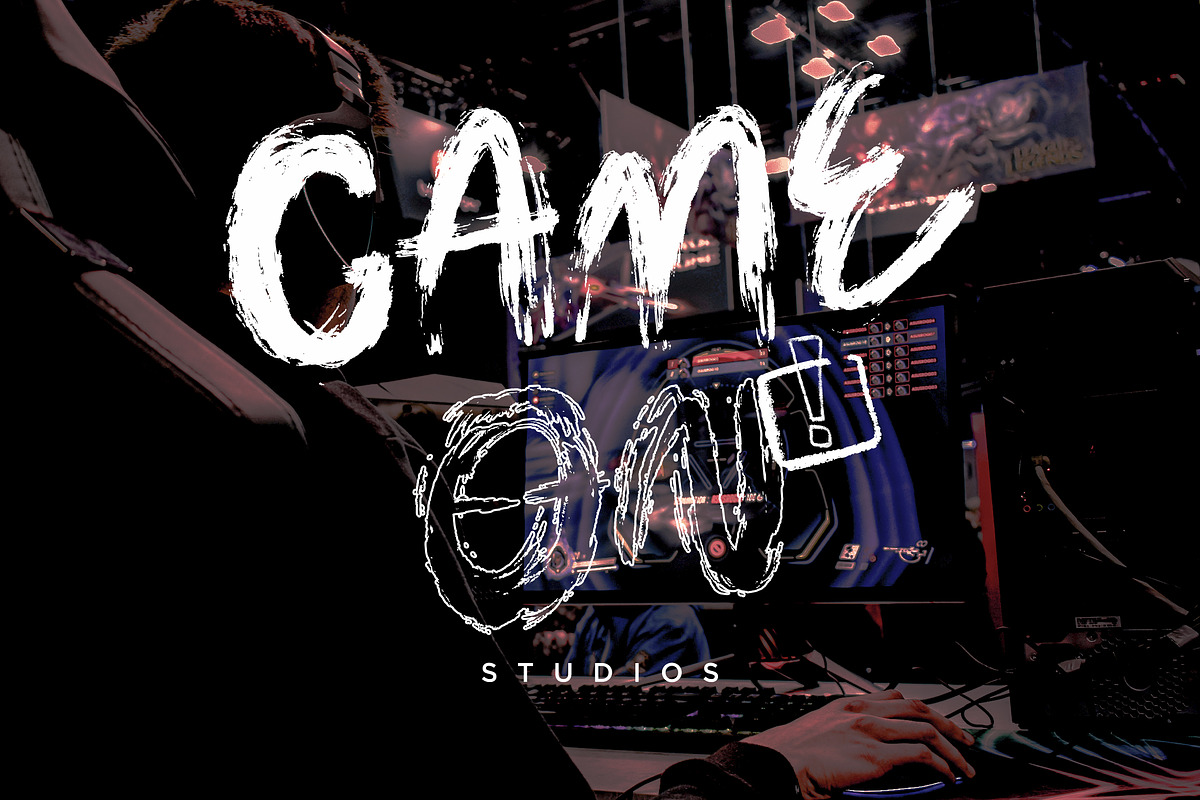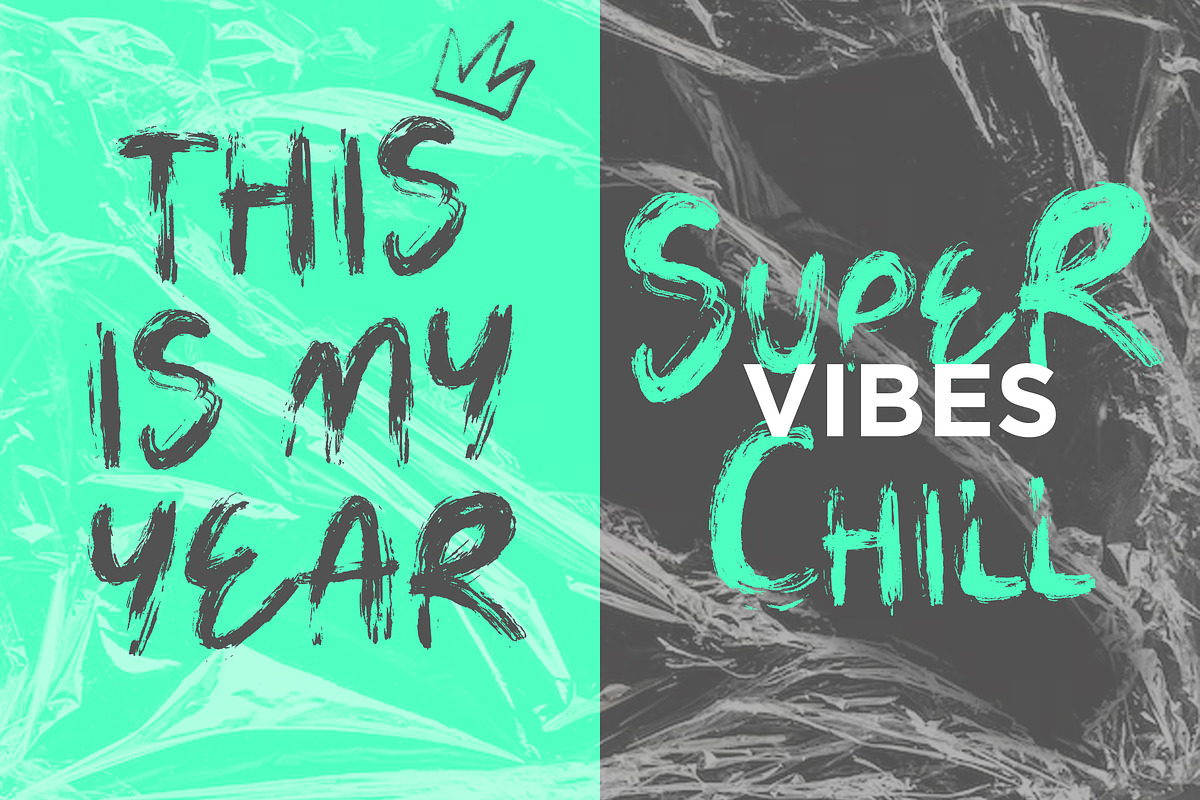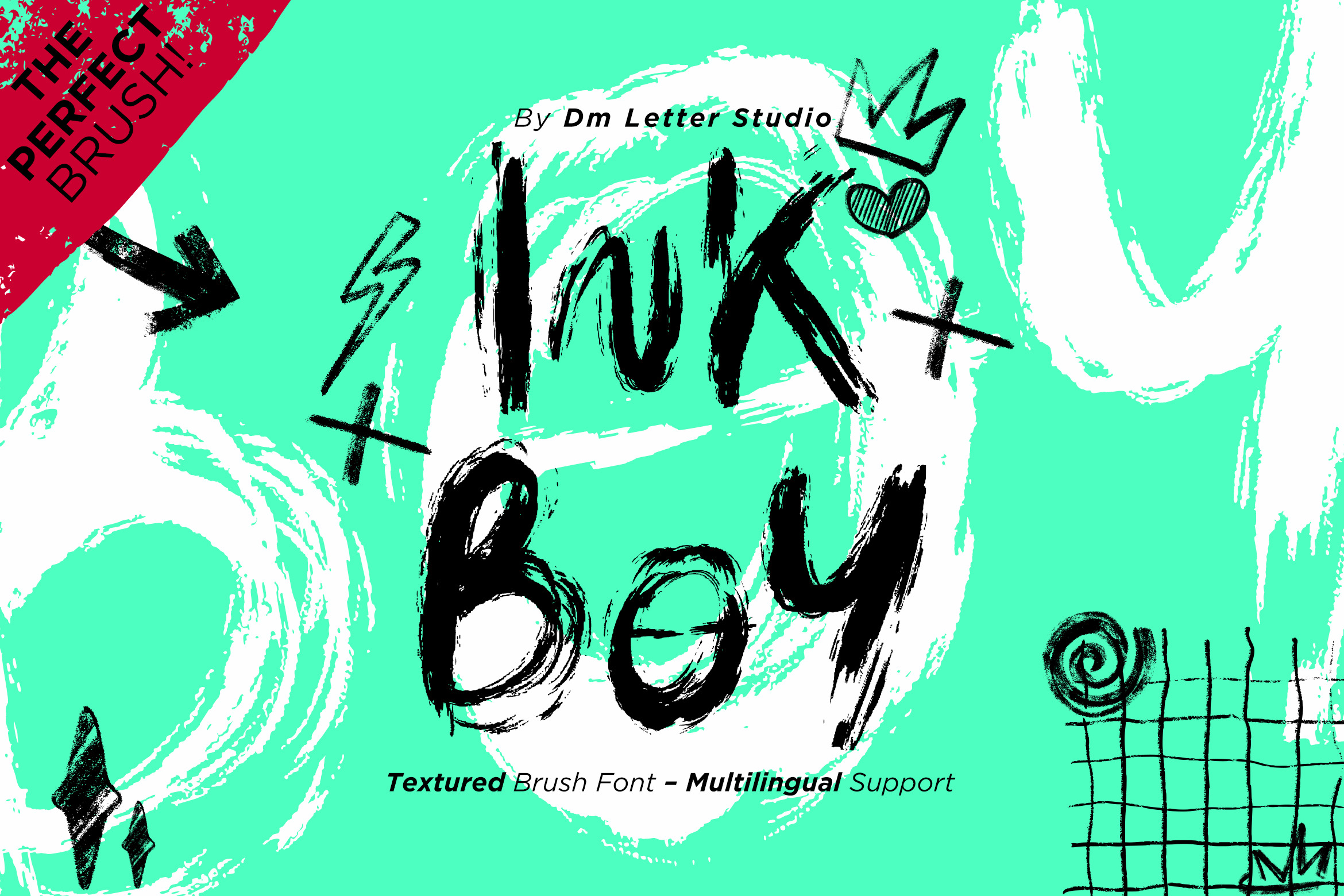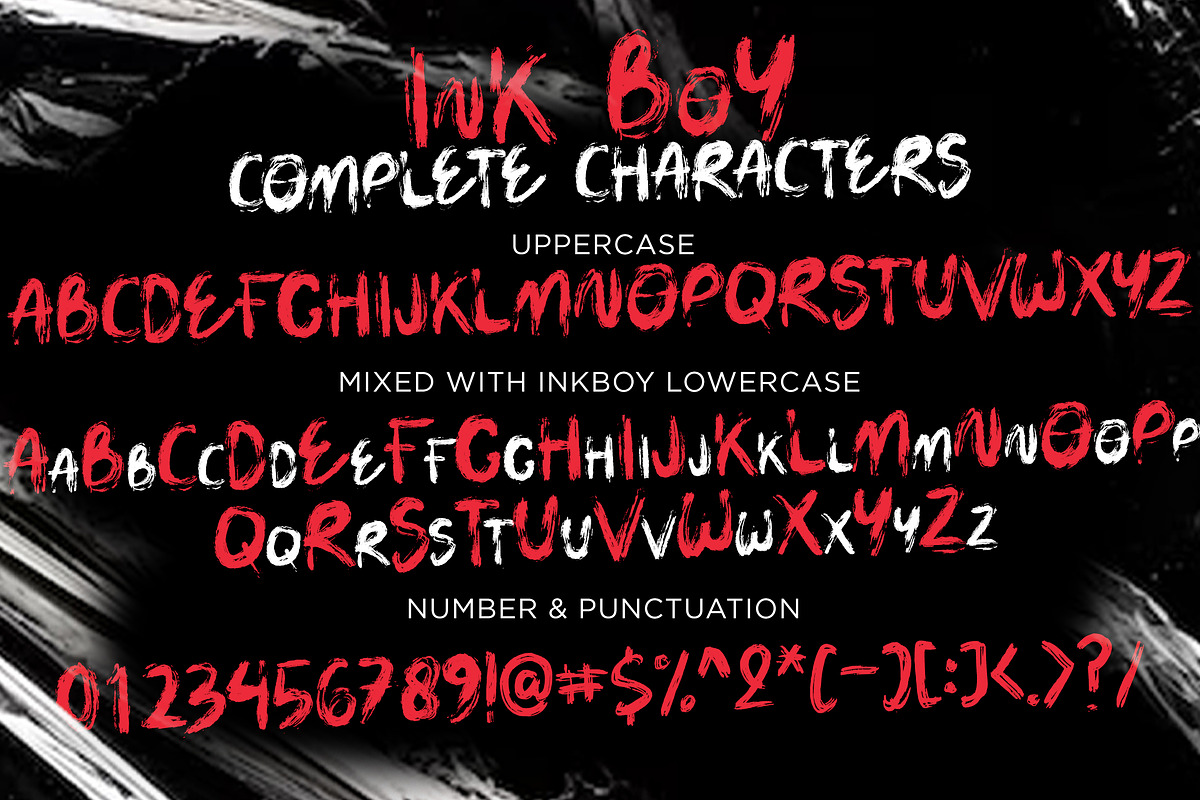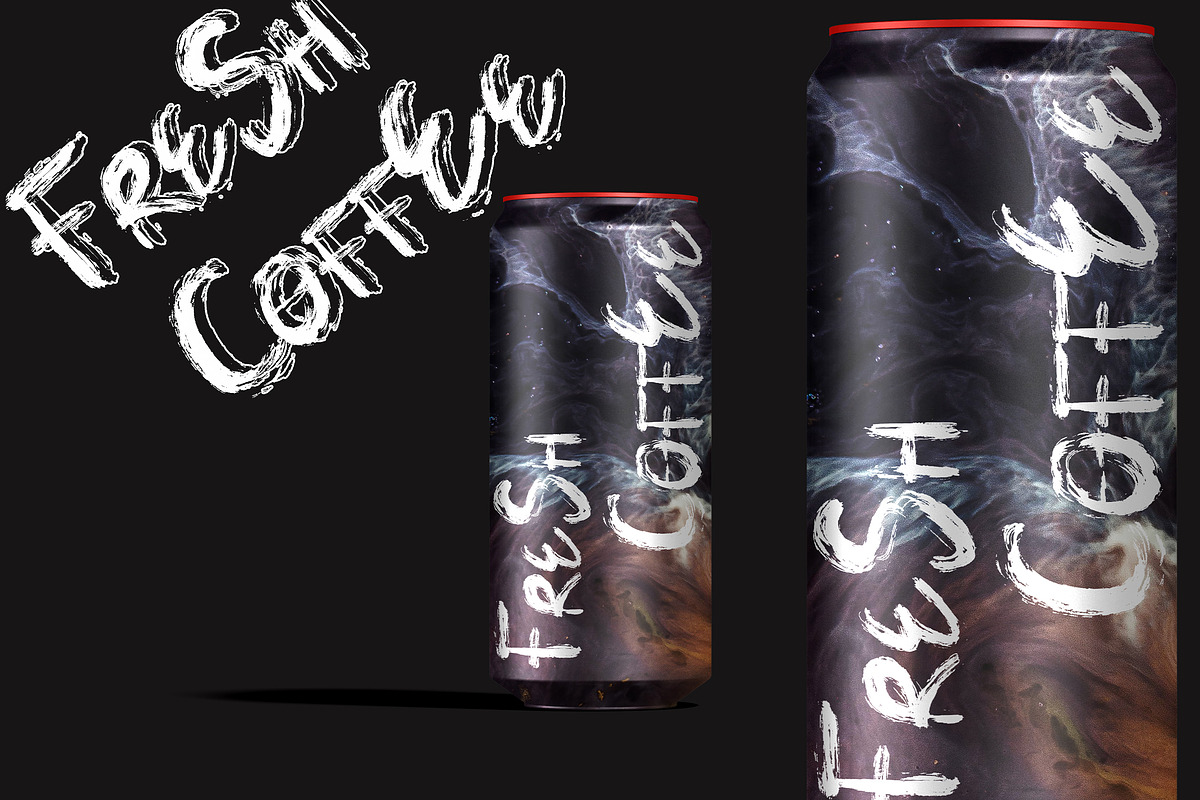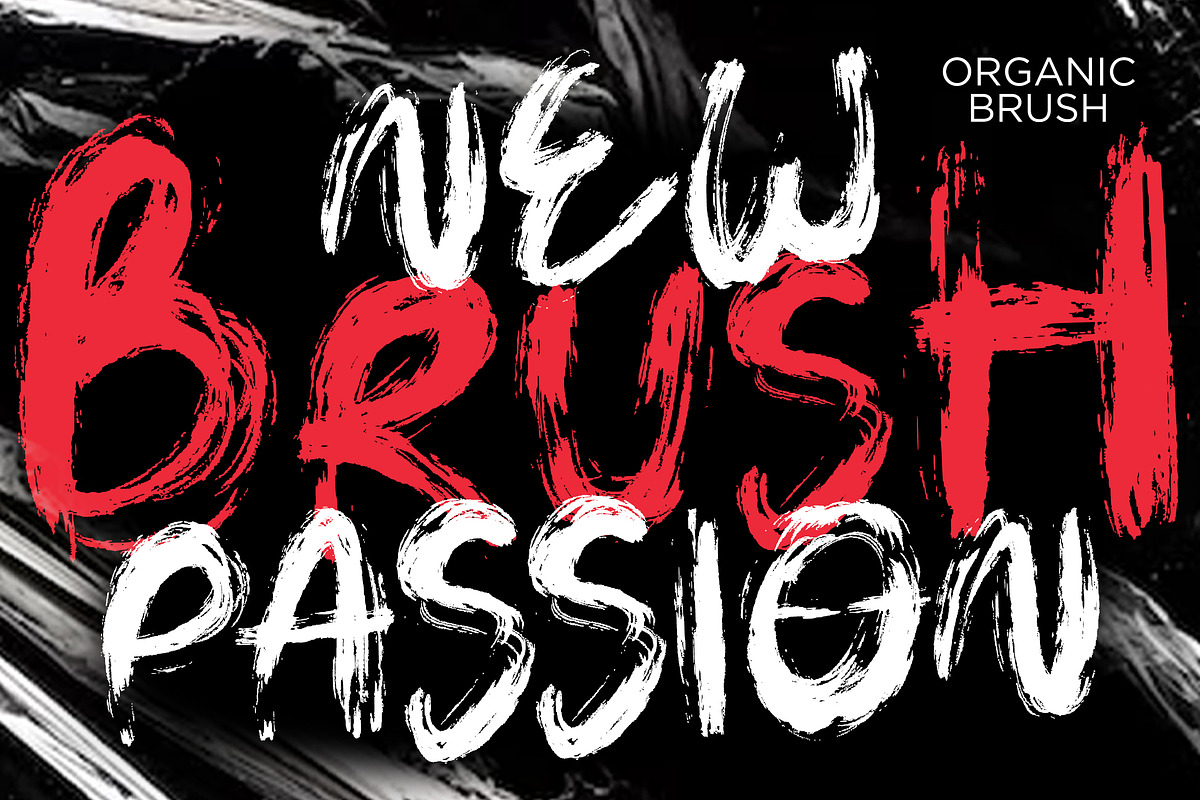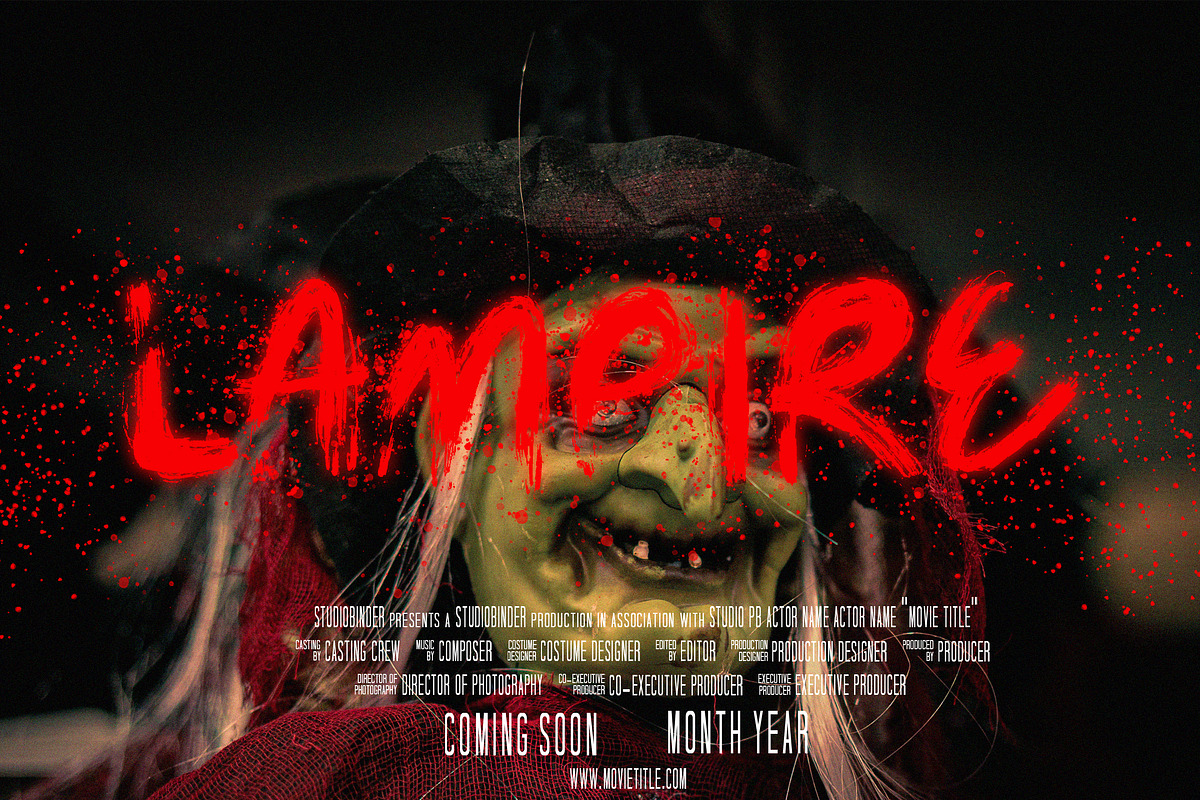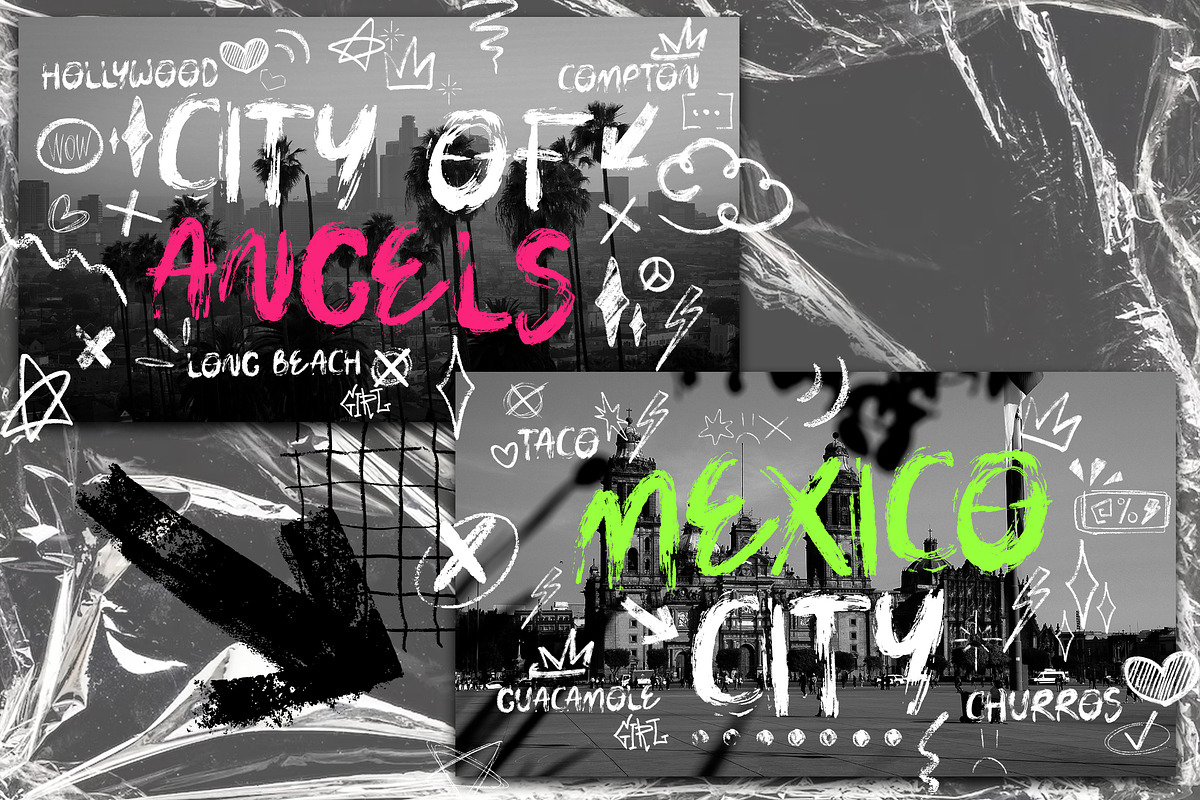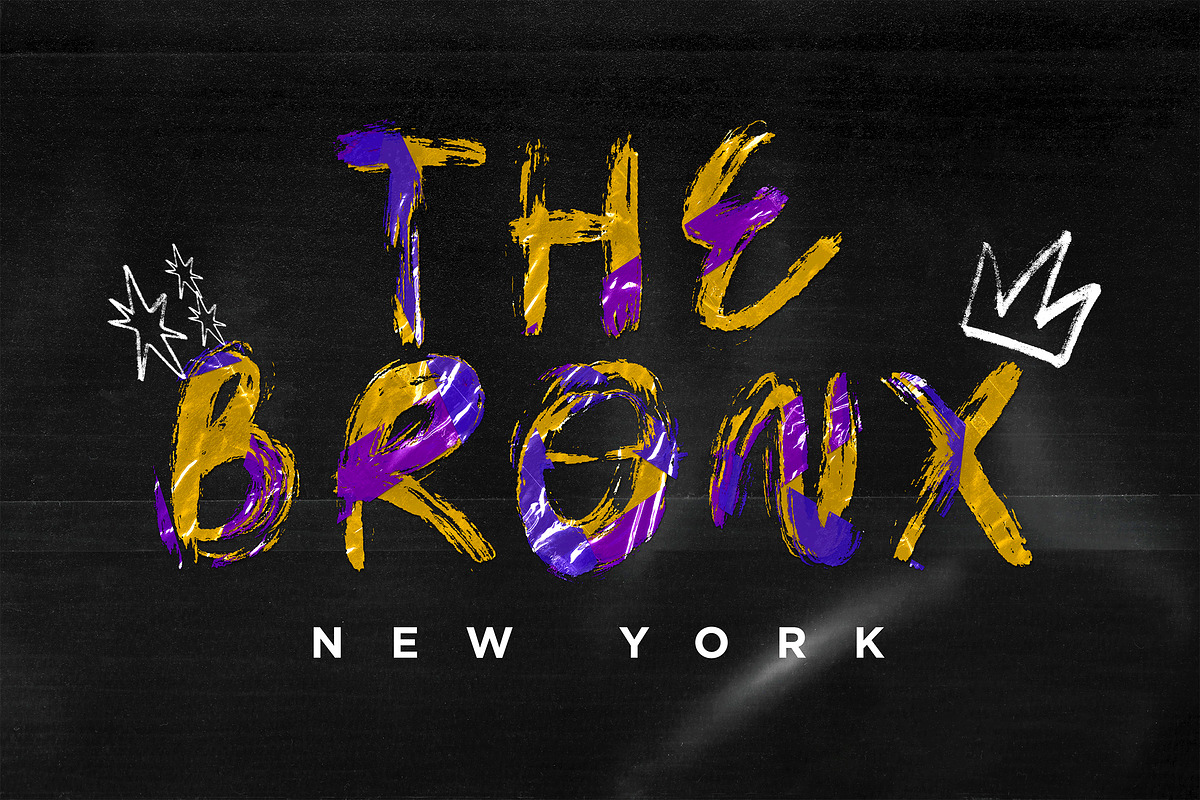
Ink Boy – Textured Brush Font
Introducing Ink Boy, a bold and expressive textured brush font designed to bring energy and creativity to your projects. Handcrafted with a raw, inky feel, this font is perfect for posters, streetwear designs, branding, album covers, and edgy typography projects. The natural brush strokes and artistic imperfections add a gritty, rebellious, and urban vibe to any design.
- Handmade textured brush style
- Perfect for bold and artistic designs
- Graffiti & Streetwear Designs
- Music & Album Covers
- Bold Branding & Advertising
- Creative Social Media Graphics
- Movie Posters & Artistic Projects